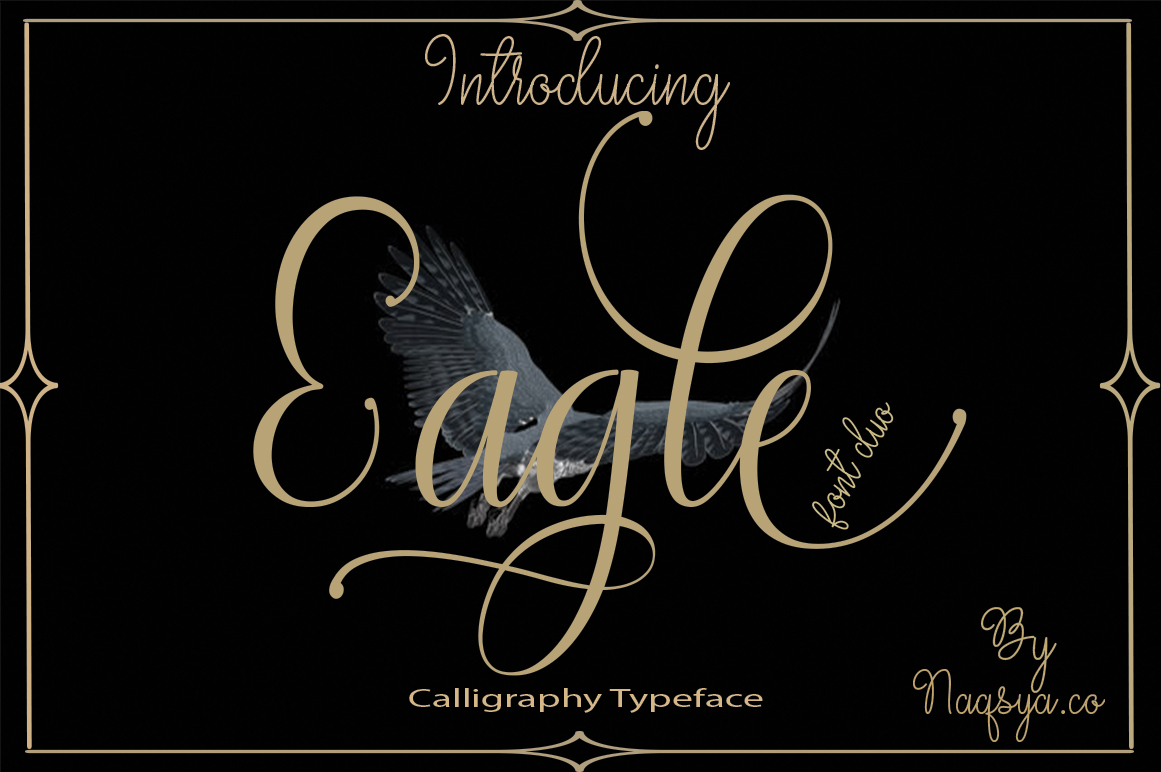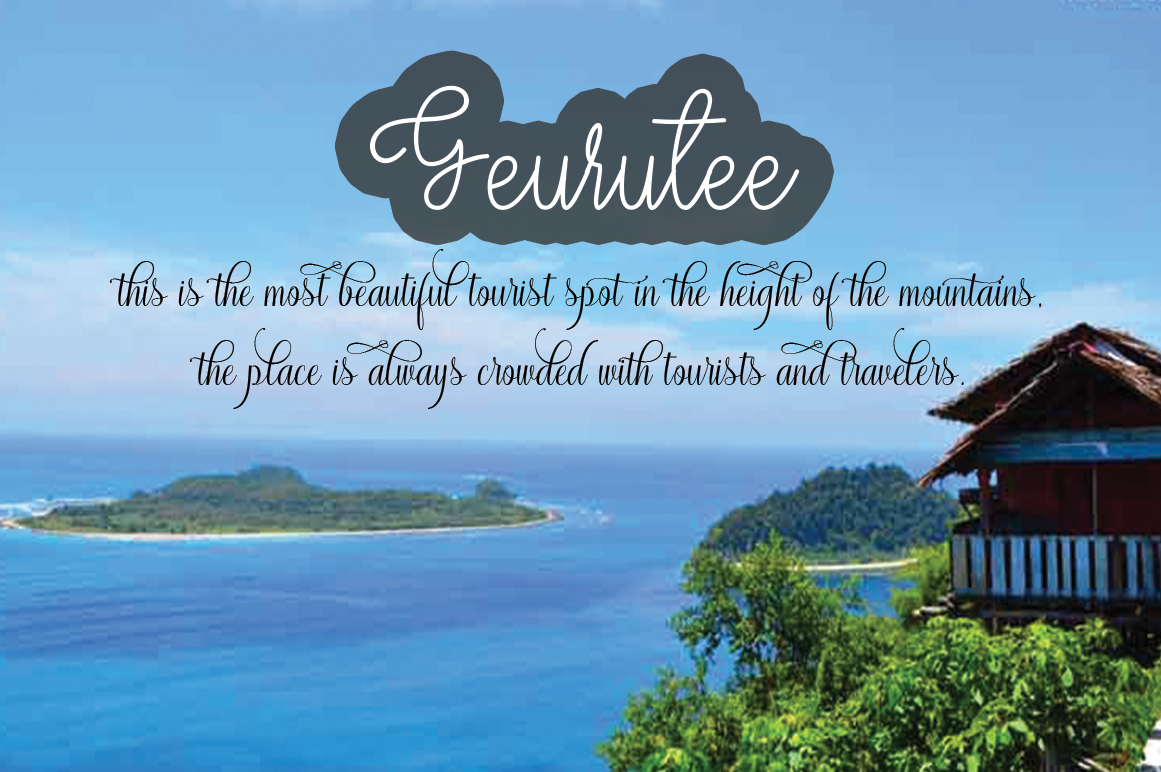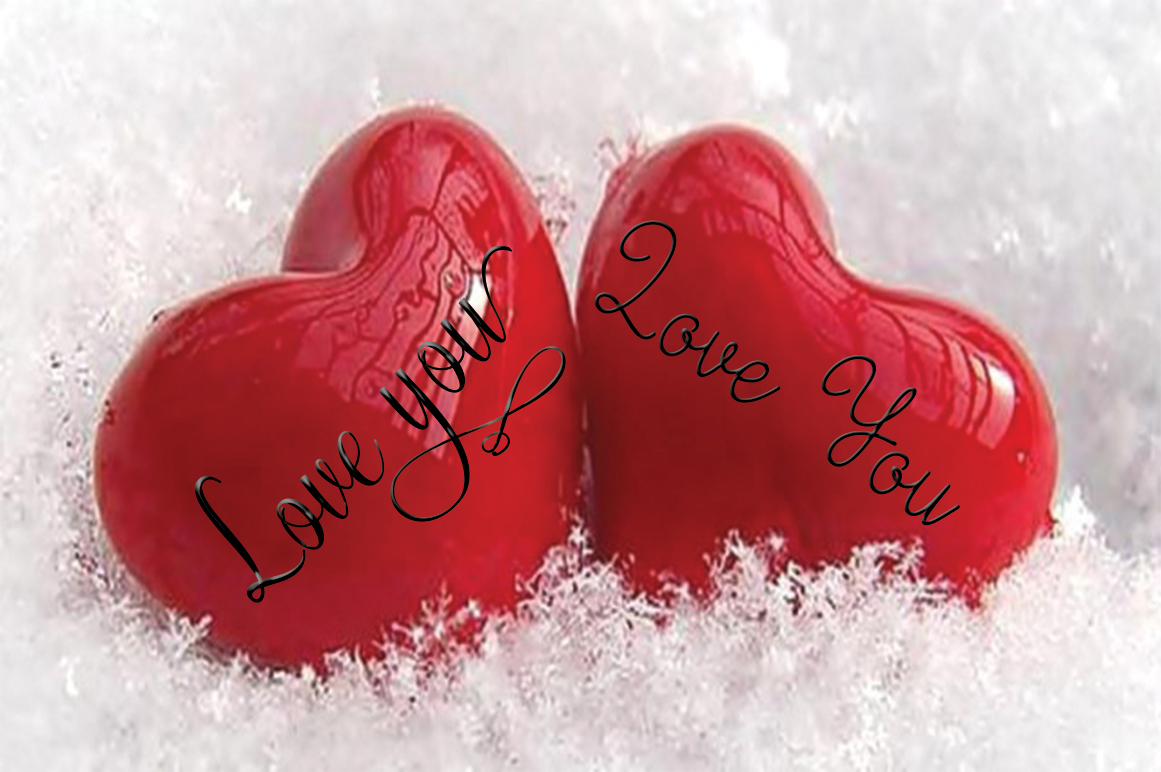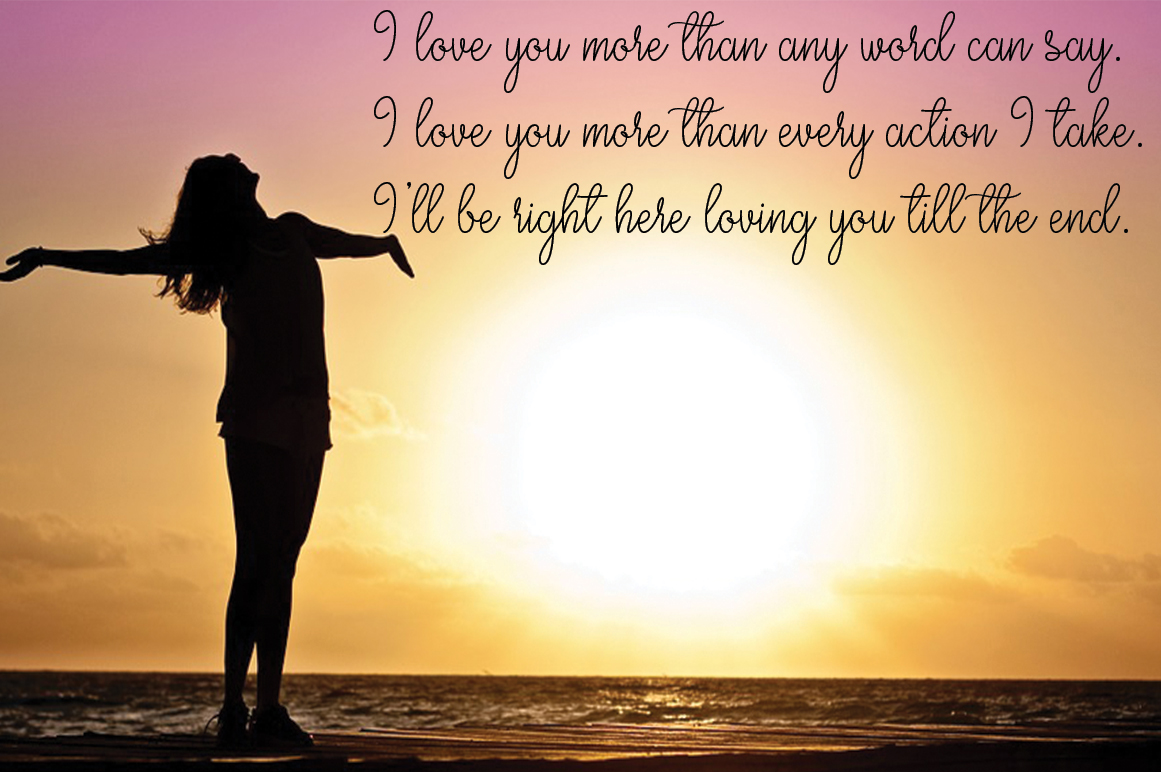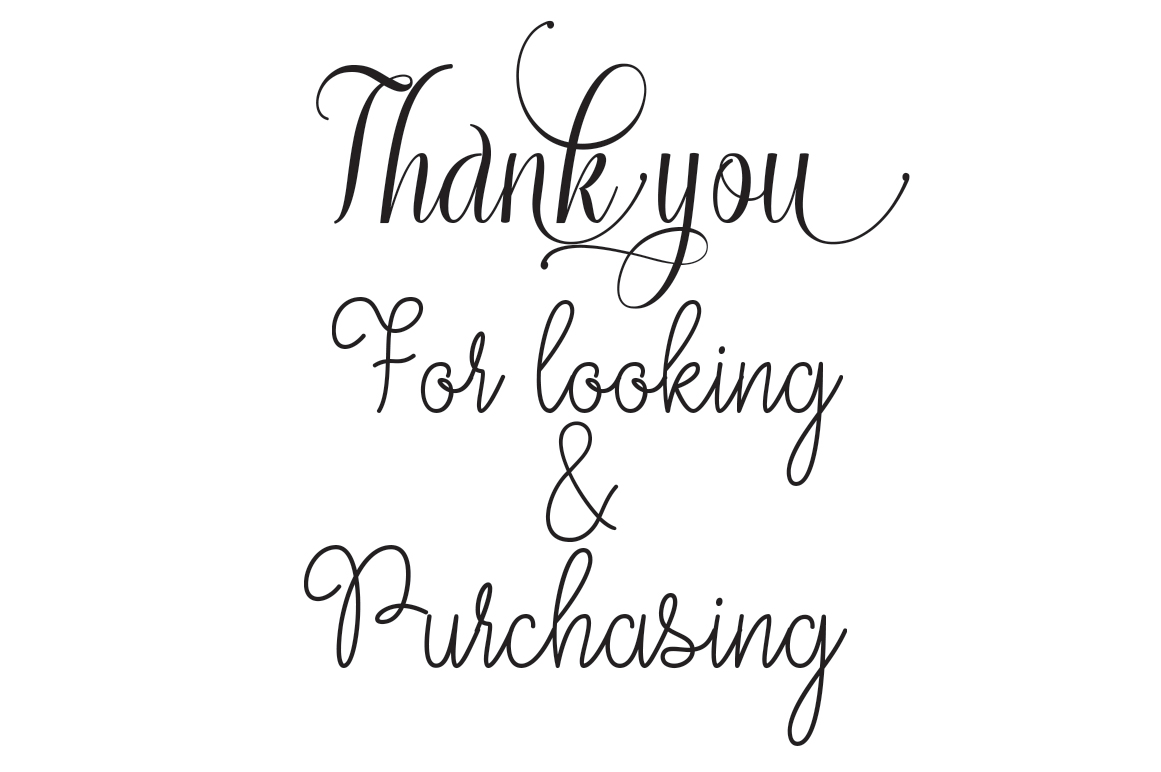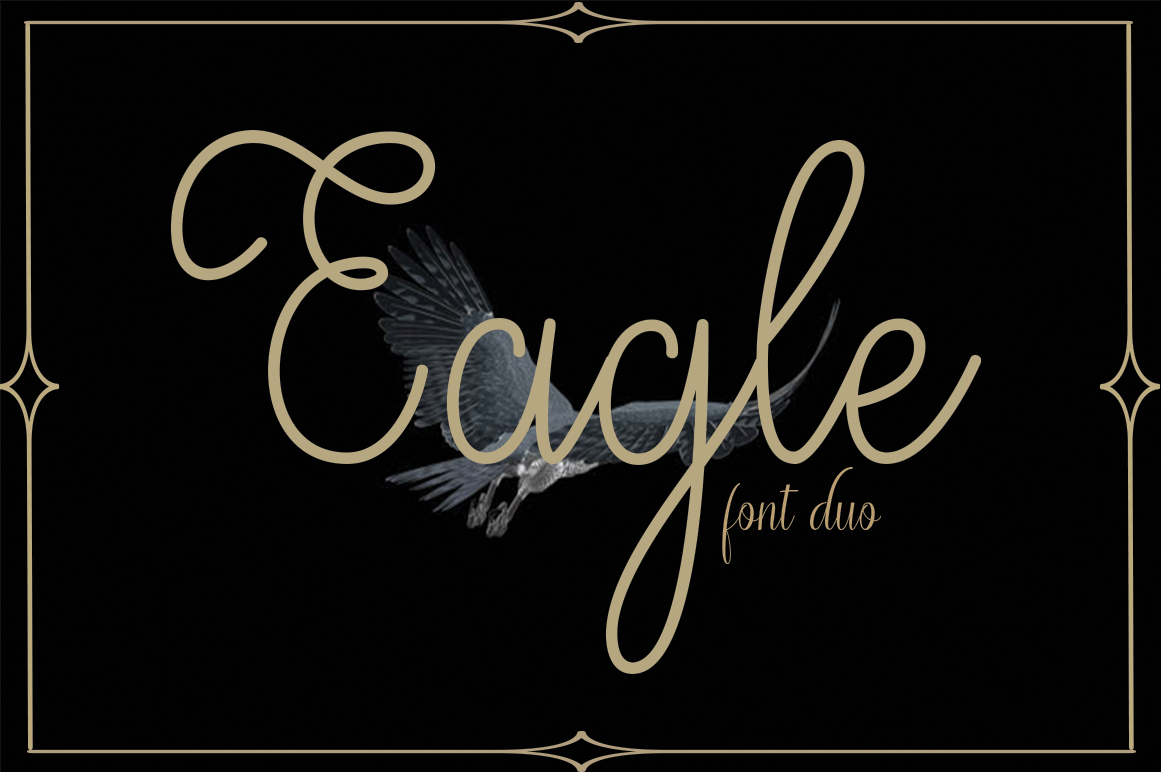
Eagle Font
About Eagle Font
Eagle is an elegant and versatile calligraphy script font, ideal for giving your invitationals and other type-based projects a heartwarming appeal.